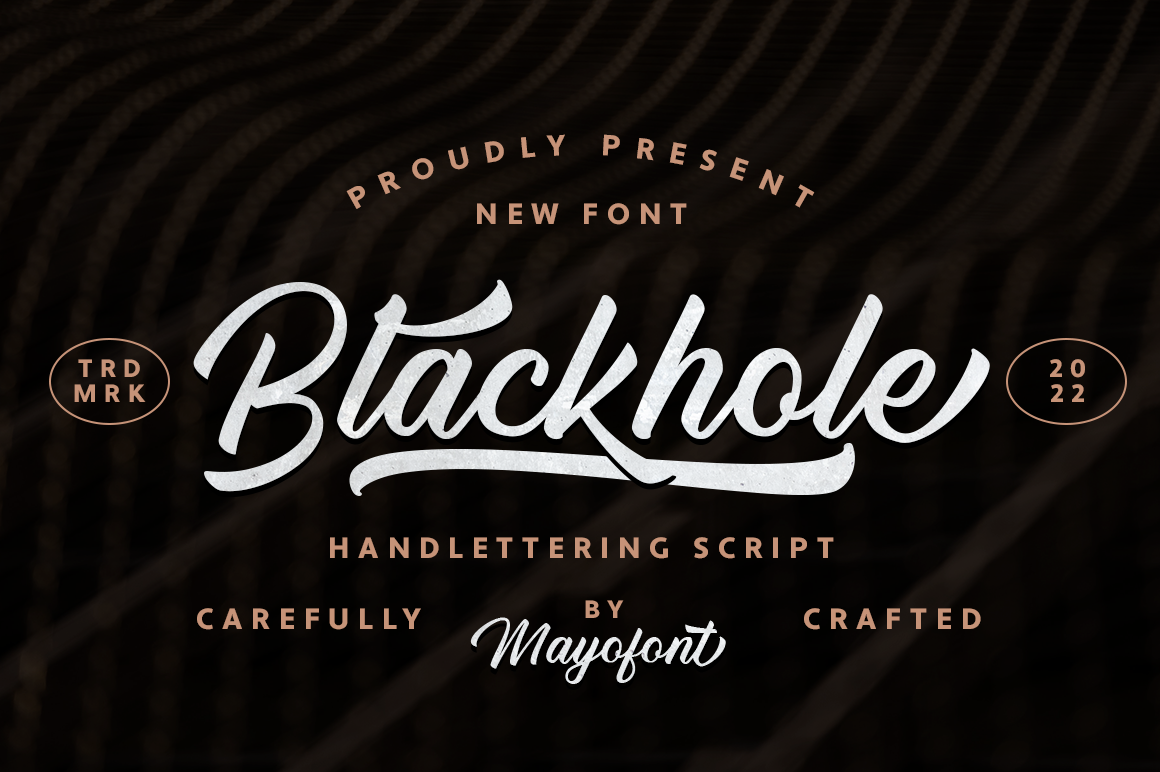
Blackhole - Script Font
Blackhole font is handlettering script font with lots of opentype features. You can use this font in a wide range of works such as logos, branding, covers, posters, quotes, product packaging, merchandise, social media and much more!
- Alternate Glyphs
- Multilingual Language